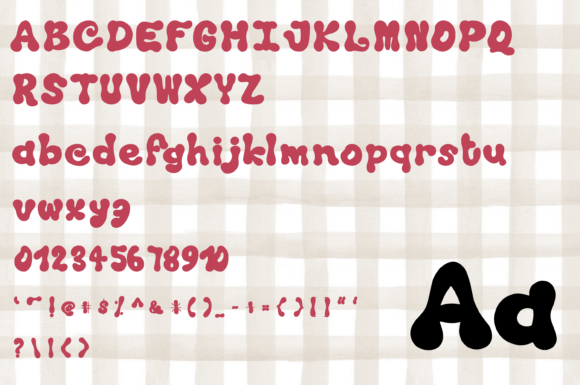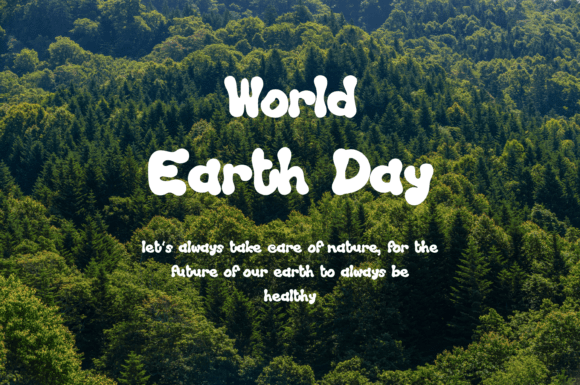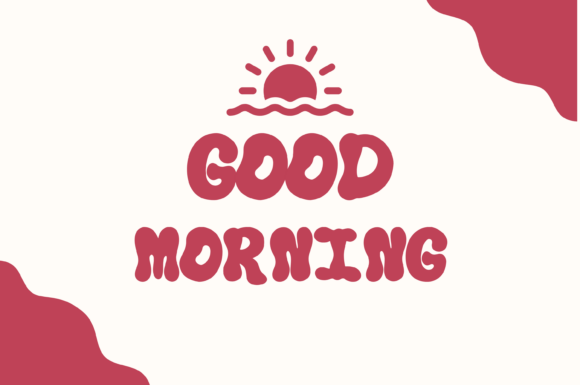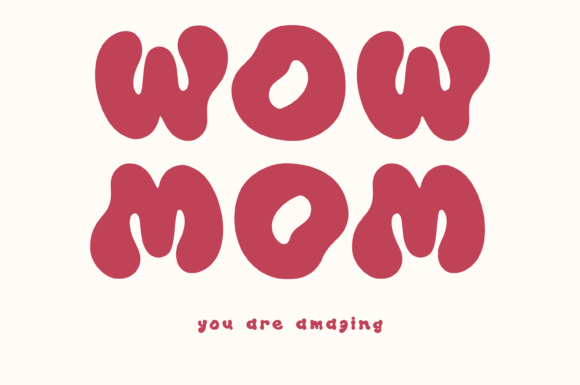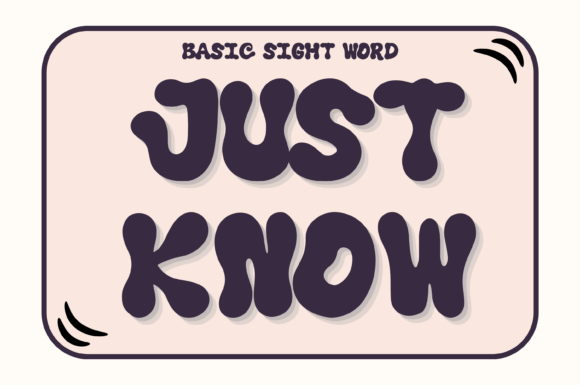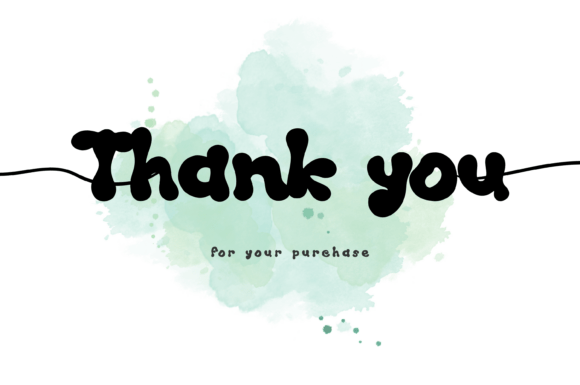
Introducing Beachdays Font: The Ultimate Summer Display Font
Are you looking for a font that captures the carefree spirit of summer and the beach? Look no further than Beachdays Font, a playful and bubbly display font that’s perfect for adding a touch of sunshine to your designs. Inspired by the waves and seaside fun, this font is ideal for creating cheerful and casual designs that evoke the feeling of a perfect summer day.
The Inspiration Behind Beachdays Font
Beachdays Font is a display font that’s all about capturing the essence of summer. Its rounded, organic shapes are reminiscent of waves and beach pebbles, giving it a unique and playful personality. The font’s designer aimed to create a font that’s both fun and laid-back, perfect for designs that require a lighthearted and sunny touch.
Key Features of Beachdays Font
- Rounded and Organic Shapes: Beachdays Font features rounded and organic shapes that give it a playful and bubbly personality.
- Wave and Beach Pebble Inspiration: The font’s shapes are inspired by waves and beach pebbles, making it perfect for beach-themed designs.
- Perfect for Casual Designs: Beachdays Font is ideal for creating cheerful and casual designs that require a lighthearted and sunny personality.
Use Cases for Beachdays Font
Beachdays Font is a versatile font that can be used for a variety of design projects. Here are some use cases where this font shines:
- Summer Event Posters: Beachdays Font is perfect for creating eye-catching posters for summer events, such as beach parties, music festivals, and outdoor concerts.
- Children’s Book Titles: The font’s playful and bubbly personality makes it ideal for children’s book titles that require a fun and engaging design.
- Beach-Themed Branding: Beachdays Font is a great choice for beach-themed branding, such as surf schools, beachwear, and coastal restaurants.
- Social Media Graphics: The font’s casual and lighthearted personality makes it perfect for social media graphics, such as Instagram posts and Facebook covers.
Why Choose Beachdays Font?
Beachdays Font is a unique and versatile font that offers a range of benefits for designers and crafters. Here are some reasons why you should choose Beachdays Font for your next design project:
- Unique and Playful Personality: Beachdays Font has a unique and playful personality that’s perfect for designs that require a lighthearted and sunny touch.
- Easy to Read: The font’s rounded and organic shapes make it easy to read, even at large sizes.
- Highly Versatile: Beachdays Font can be used for a variety of design projects, from posters and titles to branding and social media graphics.
Tips for Using Beachdays Font
Here are some tips for using Beachdays Font in your design projects:
- Use it for Headlines and Titles: Beachdays Font is perfect for headlines and titles that require a playful and attention-grabbing design.
- Pair it with Other Fonts: Beachdays Font can be paired with other fonts to create a unique and interesting design.
- Experiment with Colors: The font’s lighthearted and sunny personality makes it perfect for bright and bold colors.
Beachdays Font is a playful and bubbly display font that’s perfect for adding a touch of sunshine to your designs. With its rounded and organic shapes, wave and beach pebble inspiration, and lighthearted personality, this font is ideal for summer event posters, children’s book titles, beach-themed branding, and social media graphics. Whether you’re a designer or crafter, Beachdays Font is a great choice for any project that requires a fun and casual design.